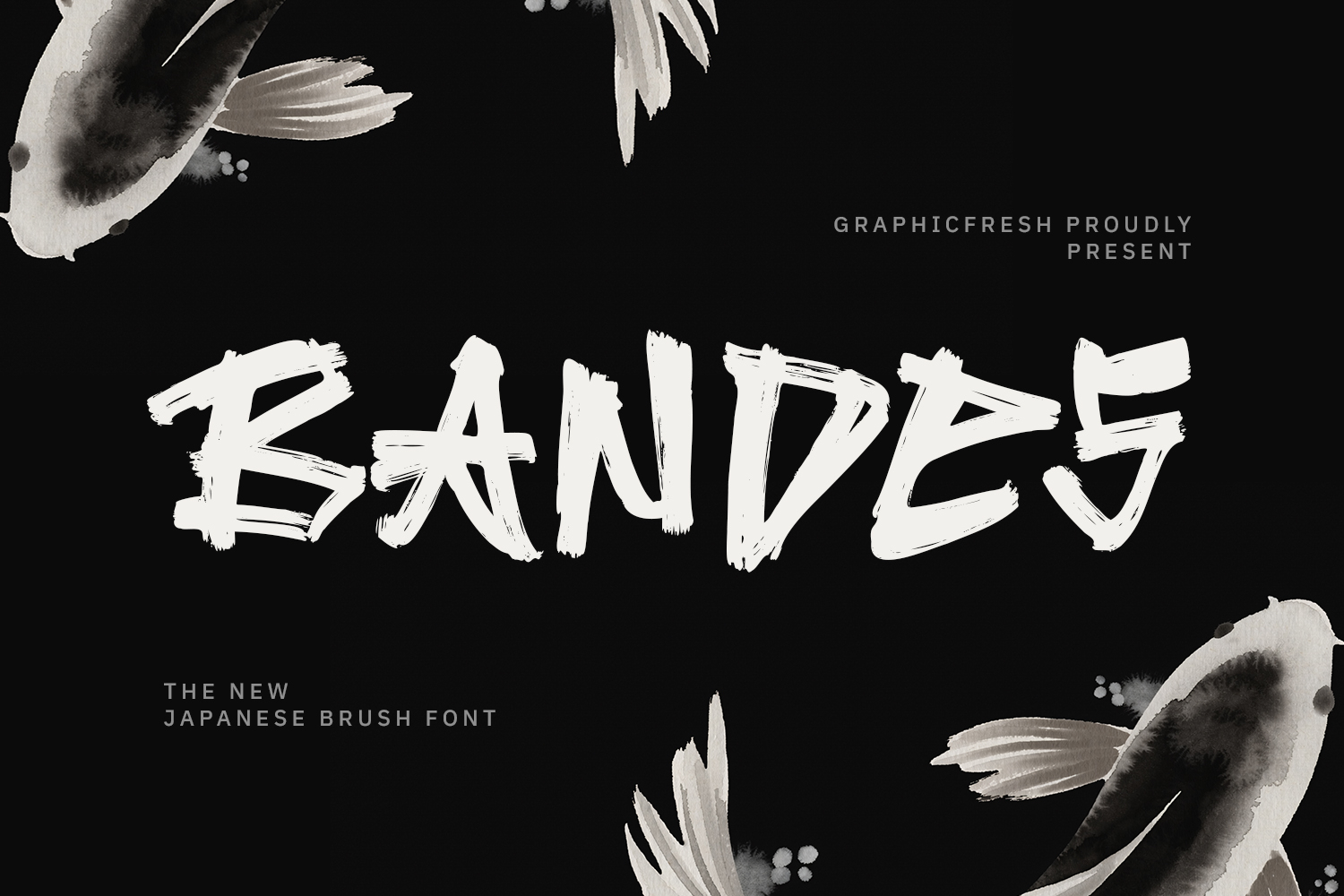
Bandes - The Japanese Brush Font
Bandes is a Japanese brush font inspired by traditional ink strokes and modern brush expression. Designed with bold, dynamic movement and authentic textured edges, this font captures the spirit of classic brush lettering with a contemporary twist. Its strong forms and natural flow create a powerful visual presence while maintaining clear readability.
Bandes is perfect for branding, posters, logos, packaging, social media graphics, and creative projects that require an Asian-inspired brush style with bold and artistic character.